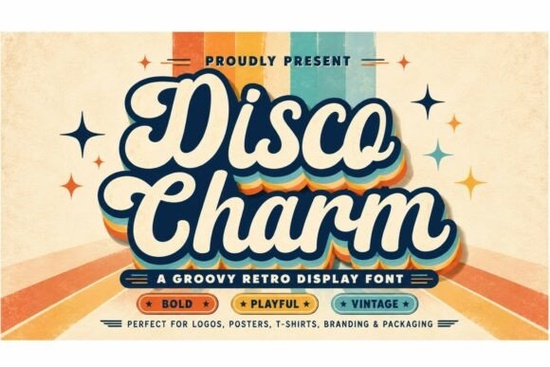
Finding the right typeface can change a project completely, especially when you need a look that feels lively and nostalgic. If you are working on merchandise or posters requiring a bold aesthetic, Disco Charm is a strong option to consider. It fits well when you need something energetic without being too serious. Many creators look for characters that pop off the screen or the paper, and this style delivers exactly that retro impact. Whether you are a print-on-demand seller or a designer making party invitations, having unique letters available helps your work stand out from standard templates.
Why Choose a Retro Display Typeface?
The design relies heavily on decorative curves and strong letterforms that bring a cheerful vibe. Inspired by the aesthetics of the 1970s and 1980s, this tool adds instant personality to any headline. While some typefaces aim for minimalism, this collection focuses on maximum expression. If you prefer rougher edges over smooth curves, you might compare it to a style like Varsity Rough for inspiration. Both share that heavy presence, but the flow here is much more dance-floor ready. However, if you lean toward softer themes for a baby shower instead of a bachelorette party, exploring a gentler collection could be beneficial.
Sometimes, a single font does not fit the whole theme. In those cases, looking for alternatives like the set found at Cute Humble provides a different direction. It keeps the playful nature but removes the sharp angles associated with disco. This flexibility allows designers to mix moods without losing their audience. The goal is always legibility combined with atmosphere. You do not want a font that looks cool but becomes impossible to read at smaller sizes.
Best Projects for Bold Lettering?
This style works exceptionally well for packaging, logos, and merchandise. When designing t-shirts, stickers, or even tote bags, the thick strokes hold up well against various backgrounds. Digital designs also benefit because the shapes scale easily from mobile screens to large banners. If you are planning a holiday sale, the warm energy suits summer events perfectly. Conversely, during colder months, you might switch your focus to something like Rainy Winter to match the weather. Keeping your visuals season-appropriate helps maintain consistency across your marketing channels.
Design Tips for Success
- Pair Wisely: Use a clean sans-serif body text so the headline remains the star.
- Watch Colors: High contrast between background and letter shape improves readability.
- Kern Carefully: Adjust letter spacing manually for tight logo applications.
- Test Sizes: Ensure the design looks good at 1 inch as well as 10 feet.
In the end, the best choice depends on the story your brand wants to tell. A font like this offers a distinct voice that speaks to fans of vintage culture. By combining strong visuals with sensible business practices, your output gains professional polish. Remember to test your layout on actual media, like printed samples, before finalizing production orders.